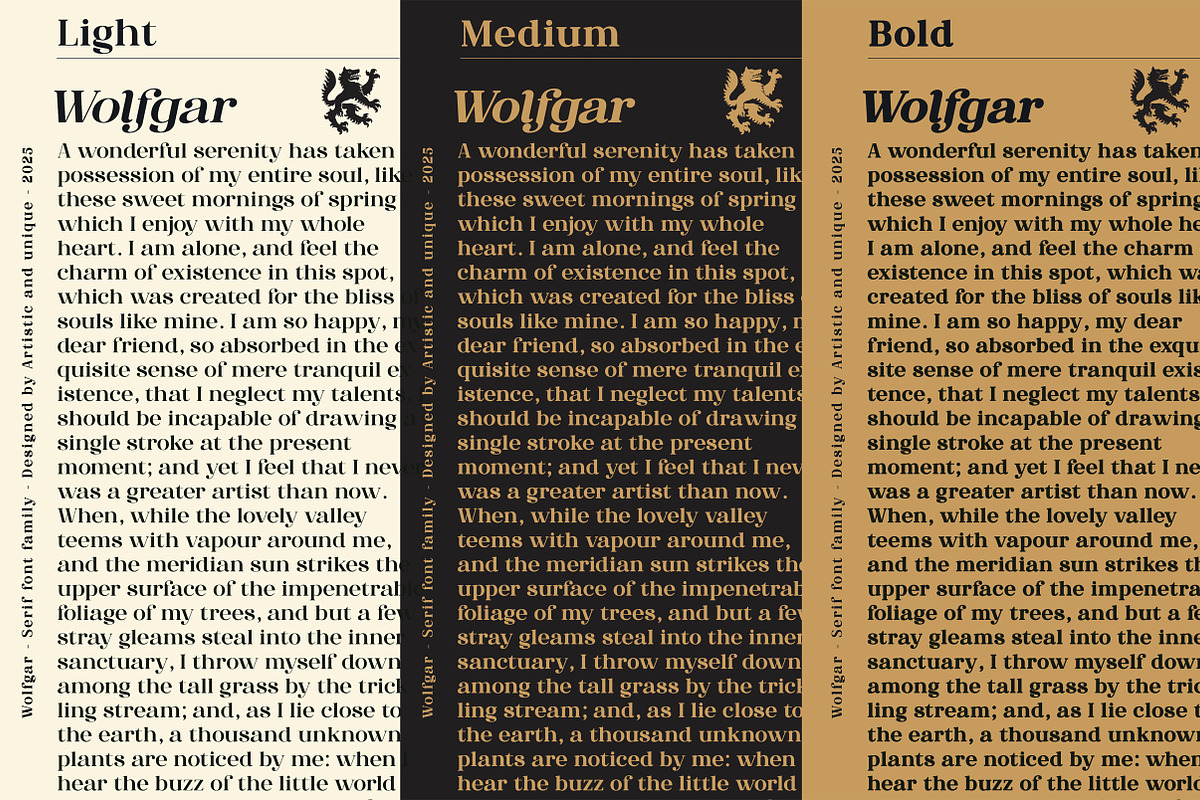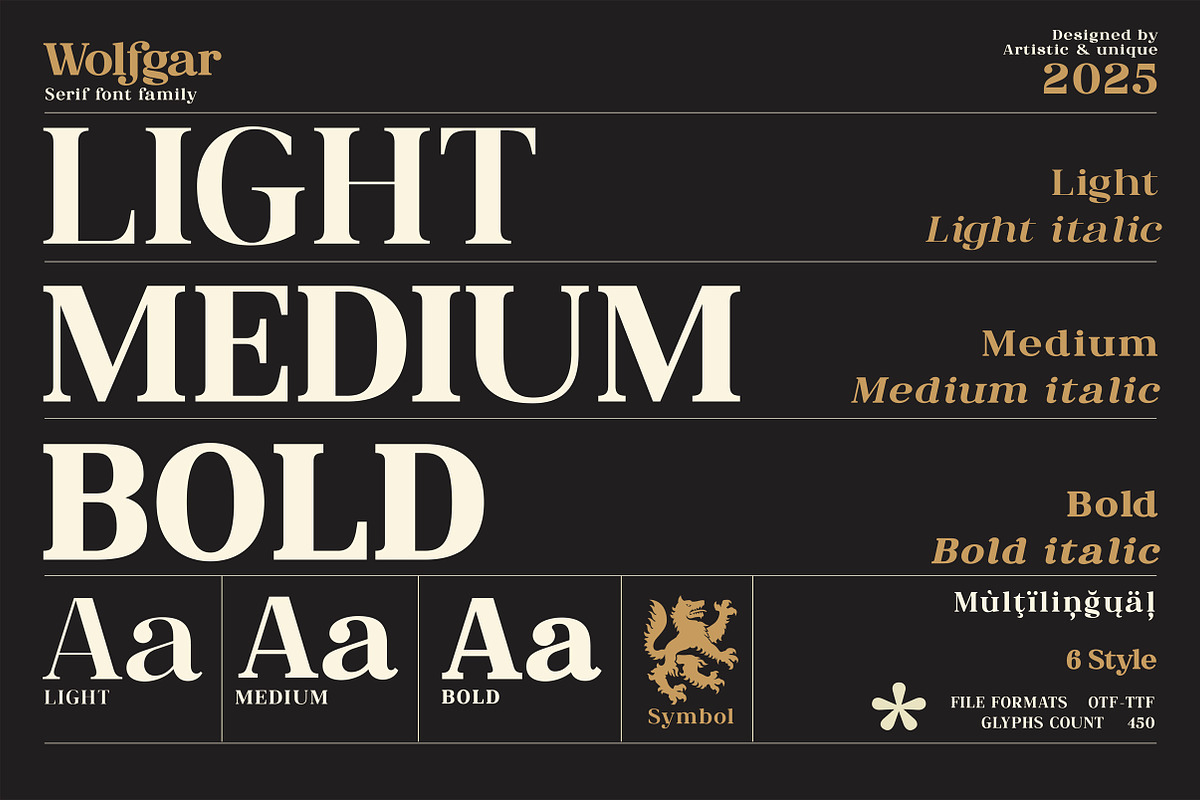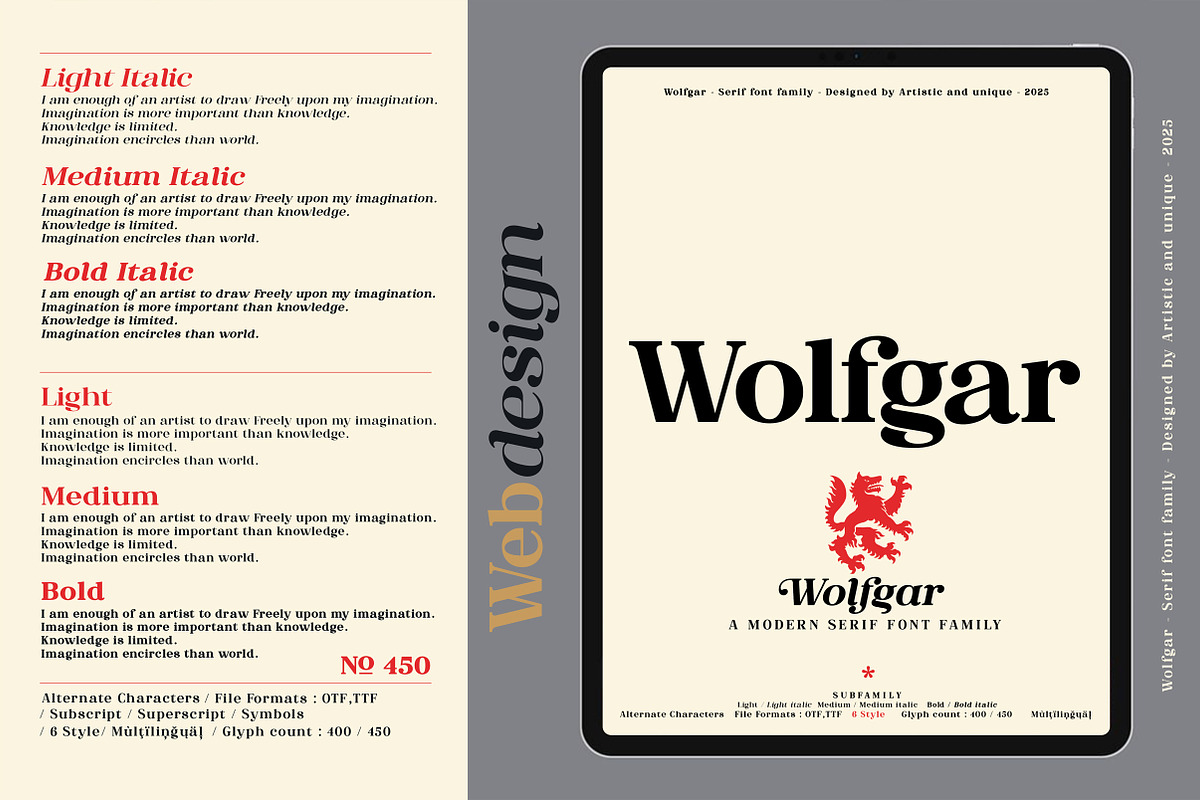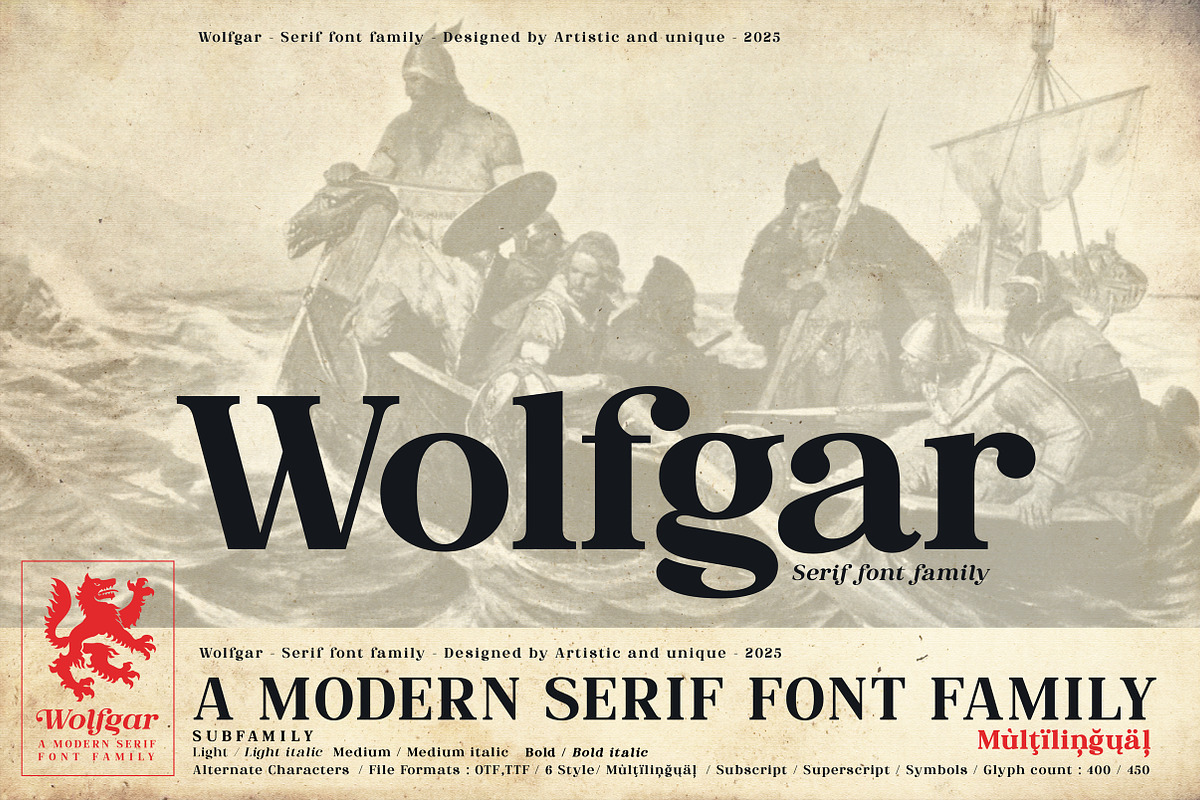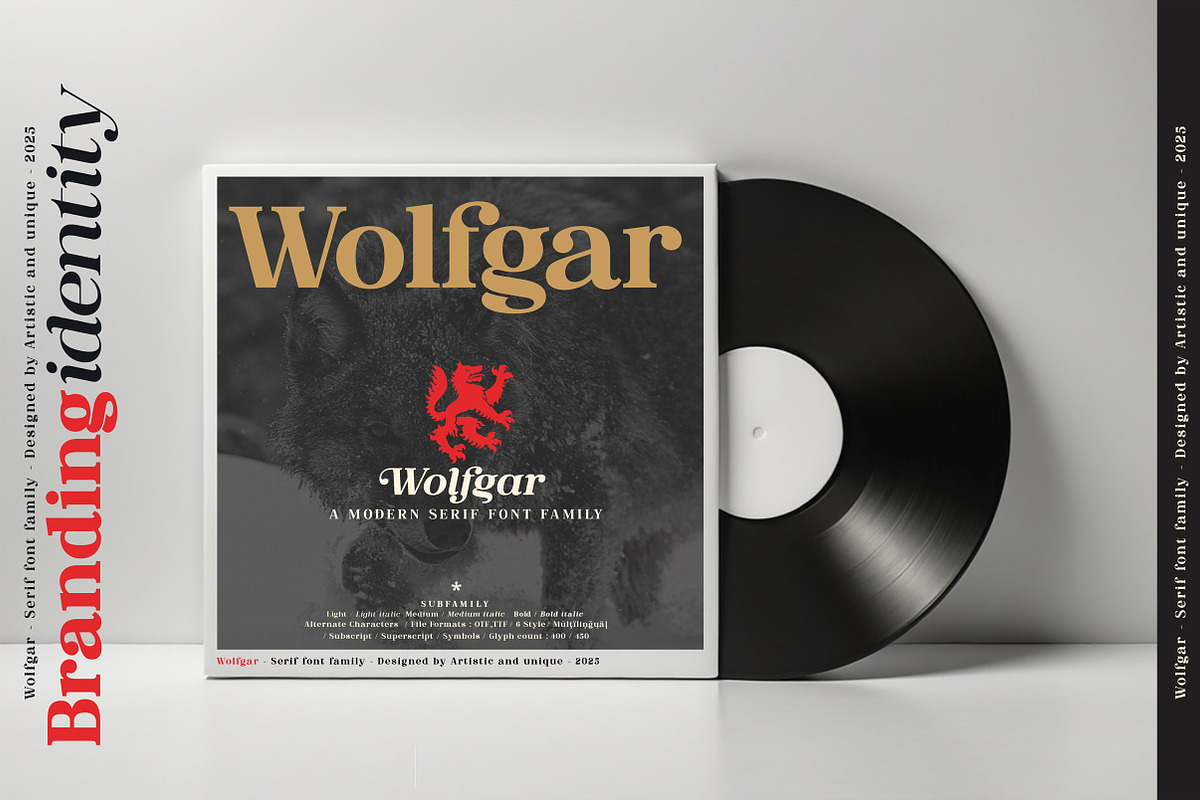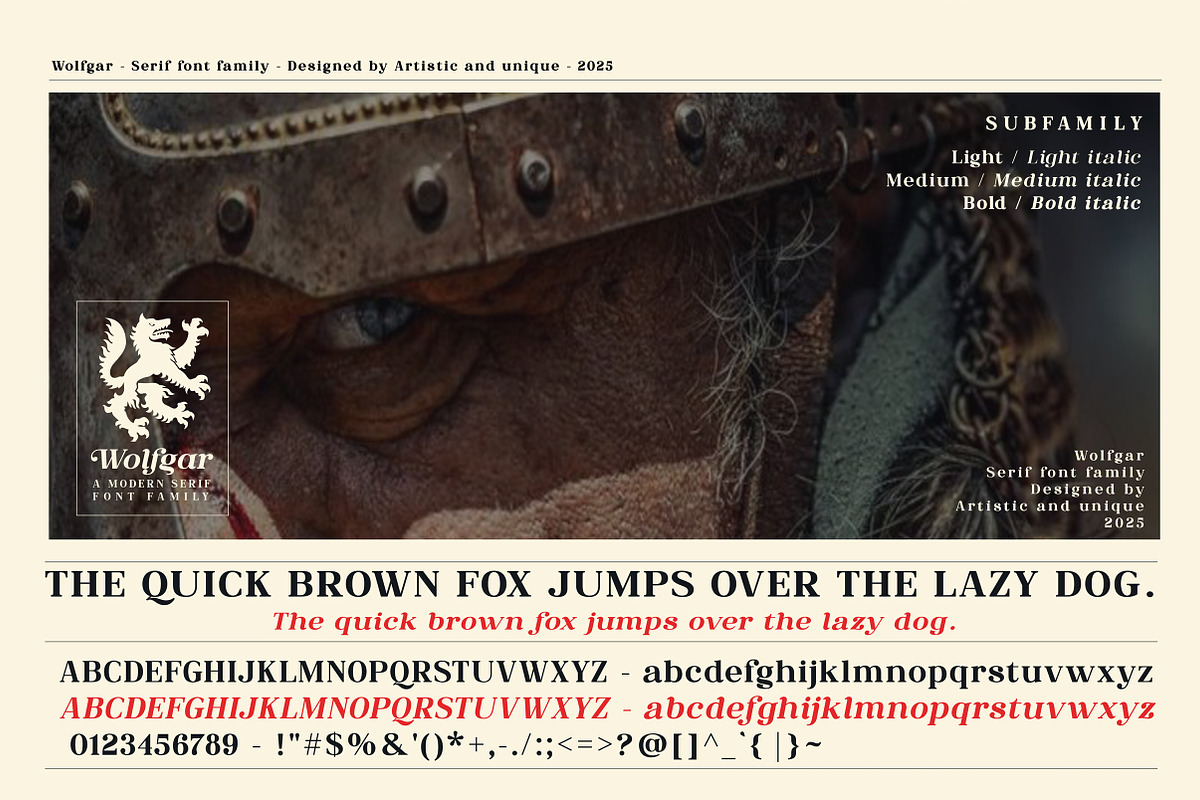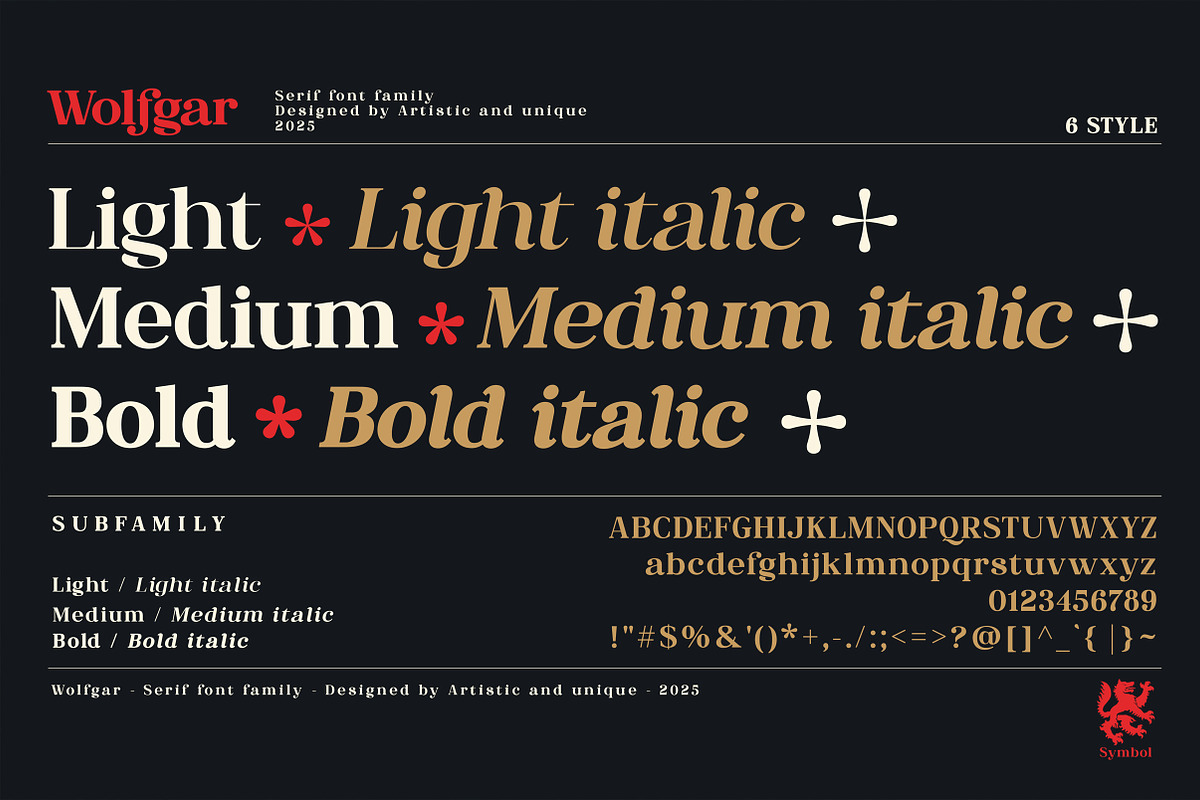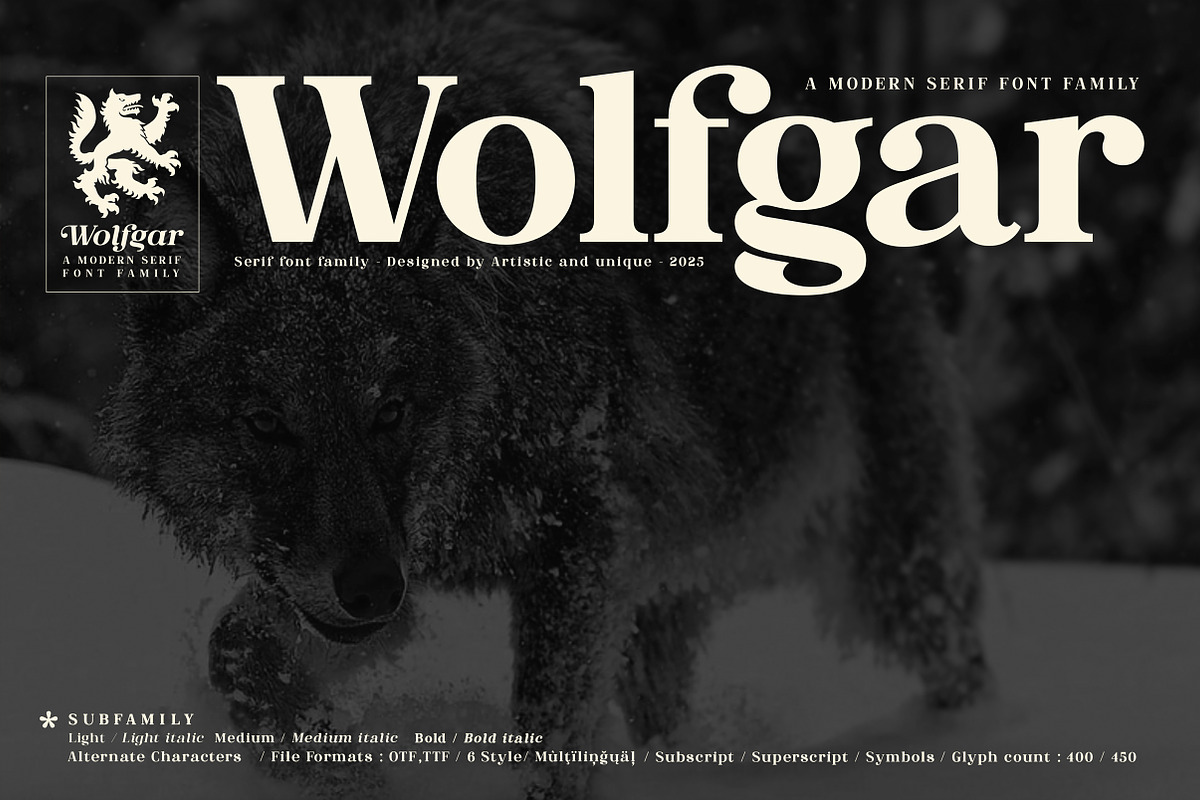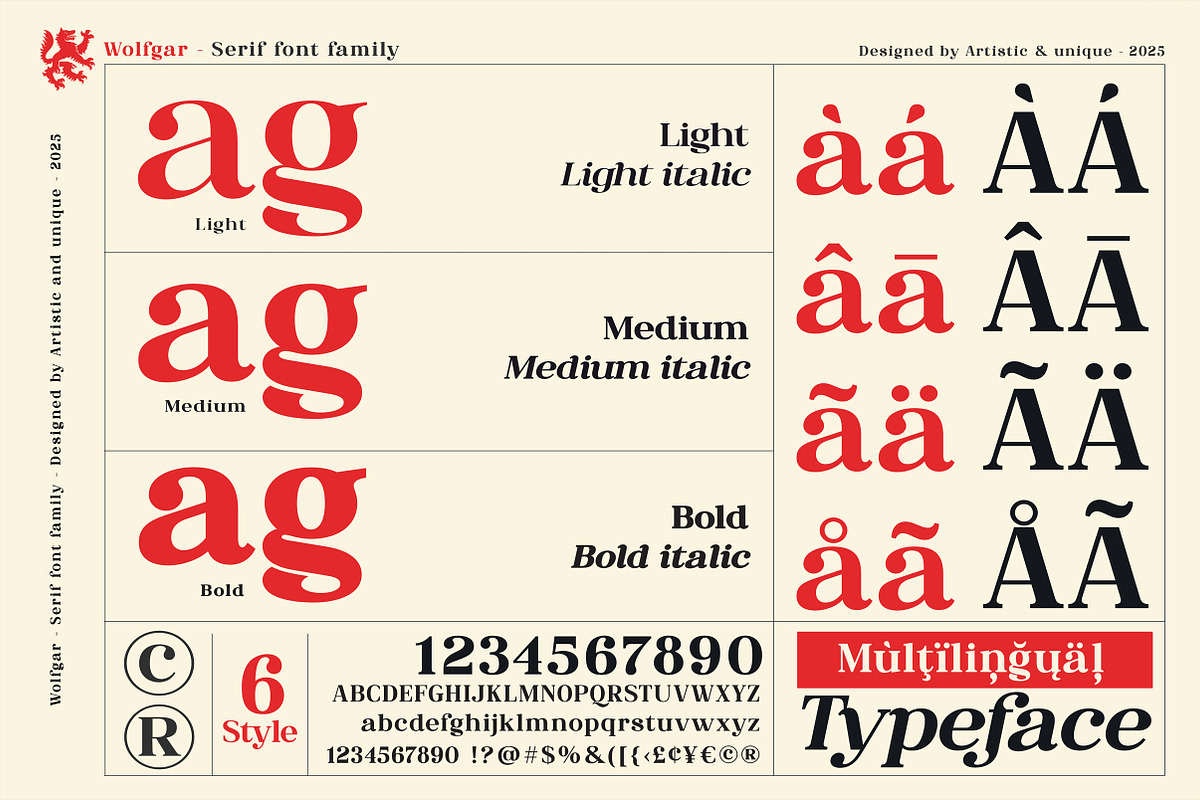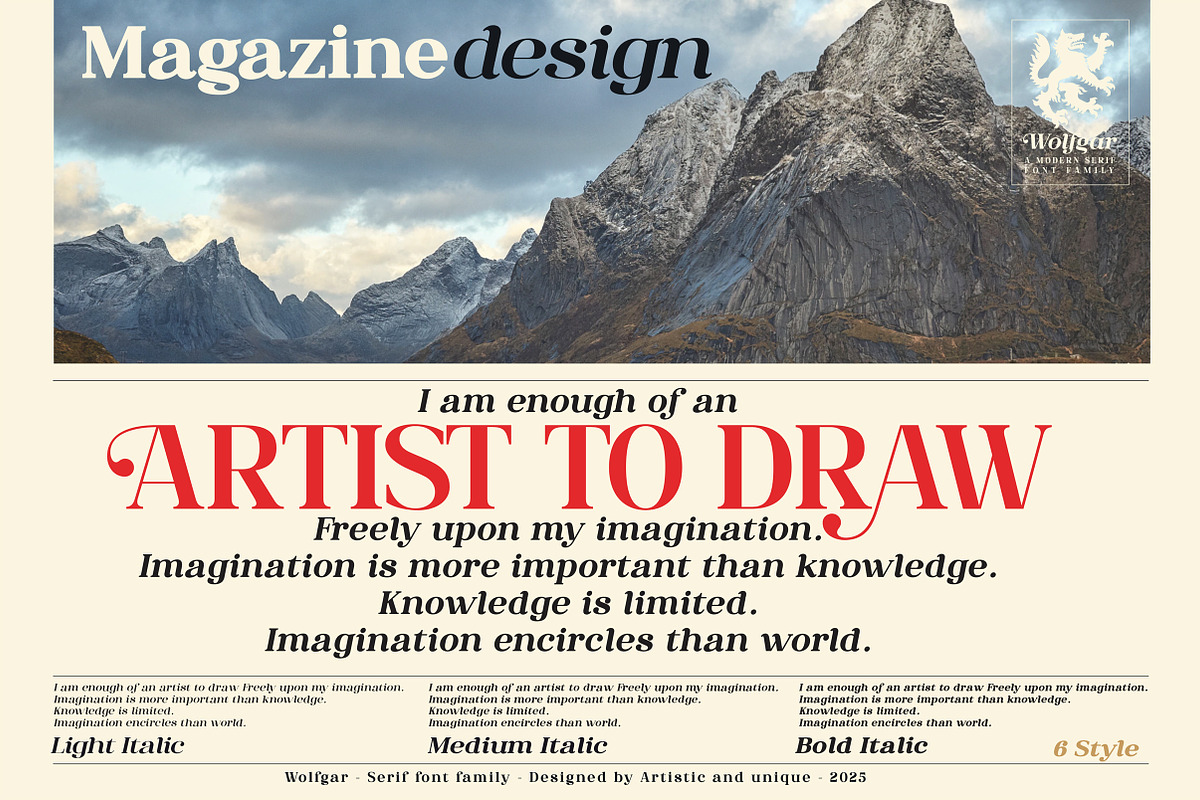
Wolfgar - Serif Font Family
Wolfgar - Serif Font Family - 6 Style - Multilingual support.
Inspired by Viking legends, this versatile Serif Font Family offers a powerful range of styles. Take your design projects to the next level with Wolfgar, a distinguished serif font family. With six unique styles and multilingual character support, Wolfgar enriches your content with alternative character designs.
This font's flexibility shines through in a wide range of applications, from editorial work and magazines to branding and web design. Seamlessly integrate standard characters for clean text or explore alternative characters for an aesthetically pleasing touch.
Whether you're designing book titles, developing brand identities, or designing stylish packaging, Wolfgar provides the versatility needed to create striking typographic compositions.
It's especially ideal for headlines, magazines, newspapers, web development, web design, movie titles, and any project requiring a touch of sophistication.
- 6 different styles
- Rich glyph options
- Subscript / Superscript / symbols
- Stylistic alternates
- Perfect for branding and editorial design Suitable for web and logo design.